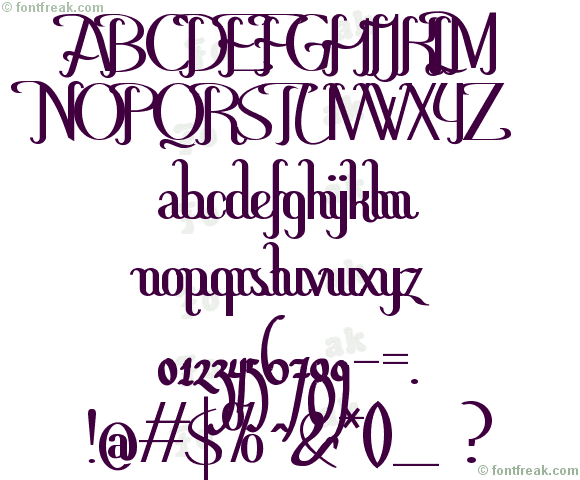
Hitalica Bold Vertical
Hitalica Bold Vertical is a striking display typeface designed by Mans Greback, characterized by its unique blend of elegance and boldness. This font falls within the decorative category, making it an excellent choice for projects that require a touch of flair. The visual characteristics of Hitalica Bold Vertical include a pronounced stroke weight that conveys confidence, with smooth curves and a distinctive vertical orientation that adds a dynamic feel to any design. The spacing is well-balanced, allowing for clarity while maintaining a sophisticated appearance.
This font is particularly well-suited for a variety of creative applications. It shines in wedding invitations, where its graceful lines can evoke romance and elegance. Movie posters also benefit from its bold presence, helping to capture attention and convey thematic elements effectively. Additionally, Hitalica Bold Vertical can elevate restaurant menus, giving them an upscale feel while ensuring readability. Small business branding can also take advantage of this font, as it lends personality and charm to logos and marketing materials.
The target audience for Hitalica Bold Vertical includes graphic designers, small business owners, and content creators who seek a versatile typeface that stands out. Whether you are crafting a unique piece of art or developing a brand identity, this font offers the flexibility and aesthetic appeal needed to make a lasting impression.